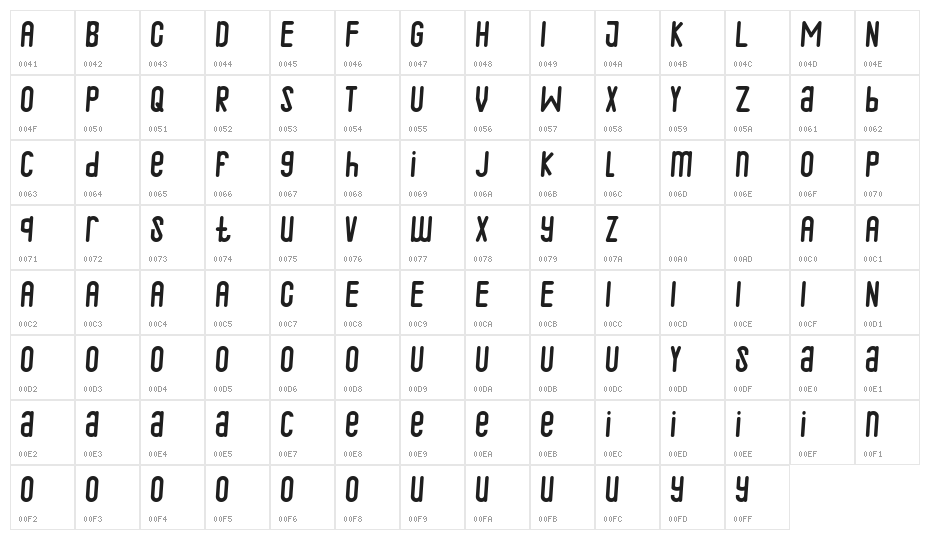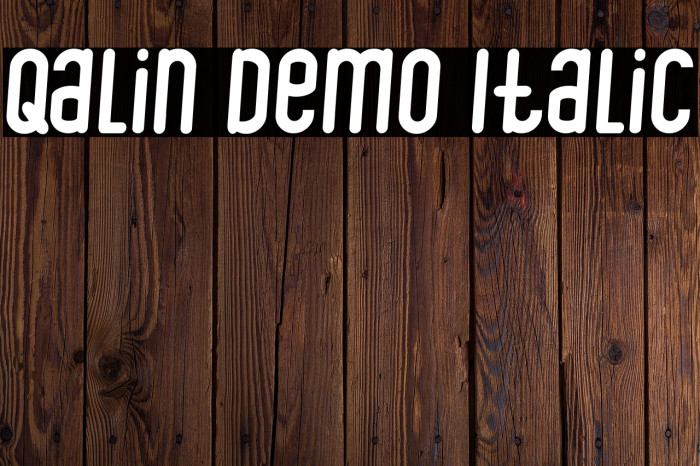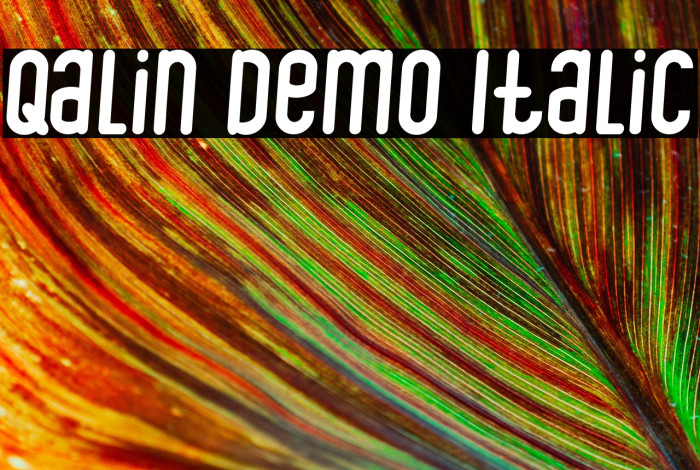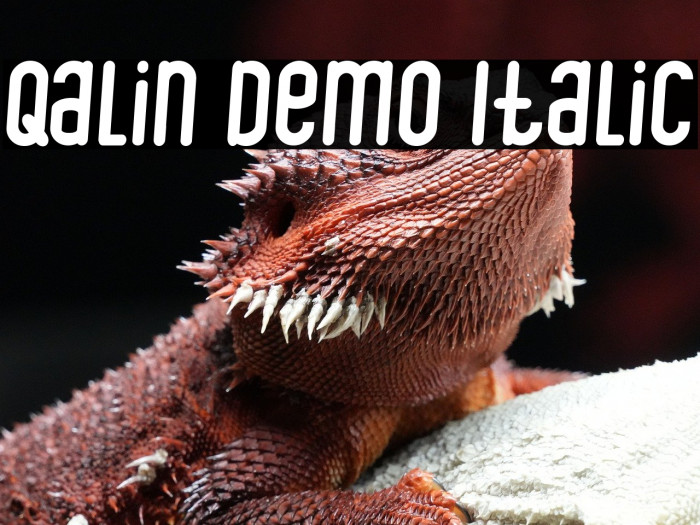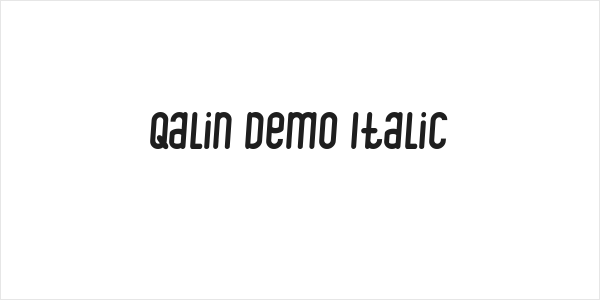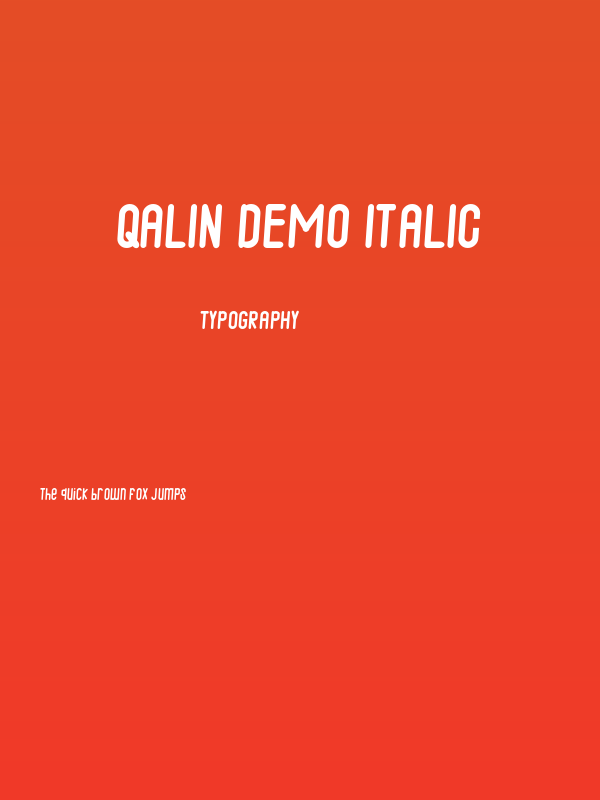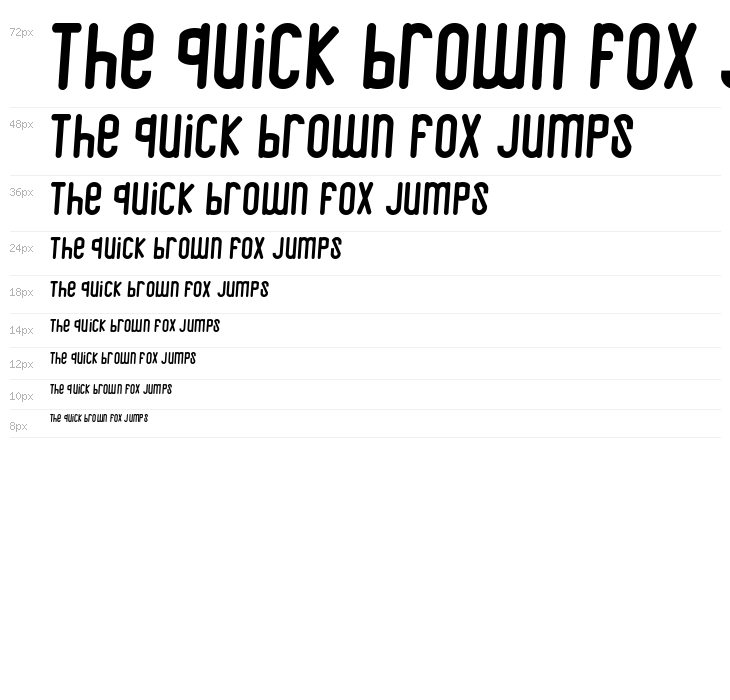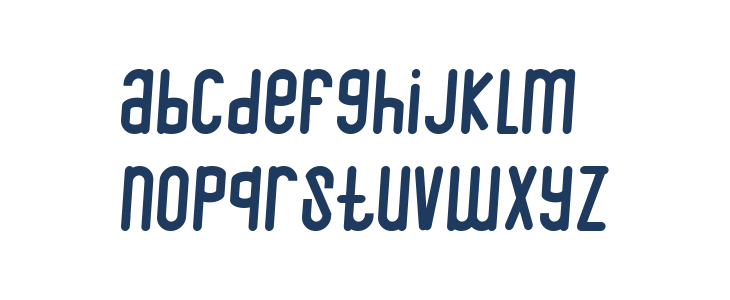
Qalin Demo Italic Font
Qalin Demo Italic Description
This font features a playful and modern design with a distinct italic slant, giving it a dynamic and energetic appearance. The characters are bold with rounded edges, creating a friendly and approachable feel. The uppercase and lowercase letters maintain a consistent style, with a slight variation in height and width that adds to the font's charm. The numbers and special characters are designed to match the overall aesthetic, ensuring a cohesive look across all text elements. The font's unique style makes it suitable for projects that require a touch of creativity and modernity.